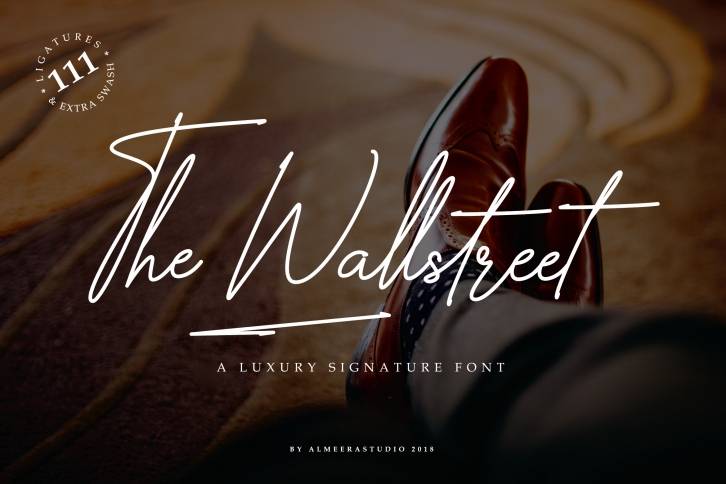
The Wallstreet is a beautiful font that was designed by Almeerastudio. It's a great choice for designers and creatives who need such a font. It was released on July 7, 2019 and the file size is 16.96 MB. The Wallstreet may give a more youthful, expressive and casual look to your project. It is a very beautiful, refined, elegant, and high-quality font.